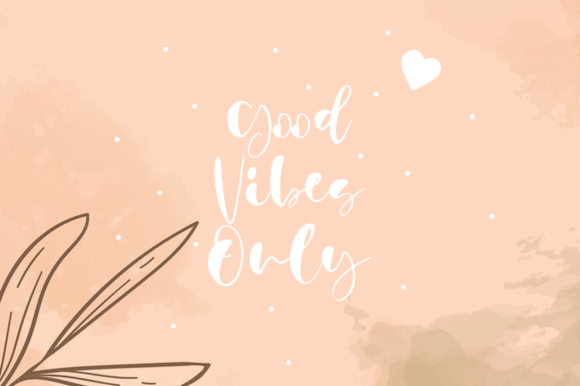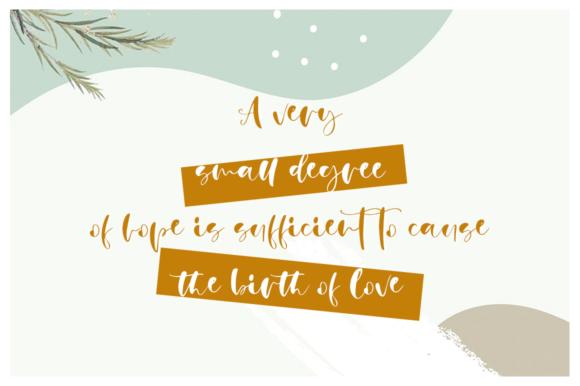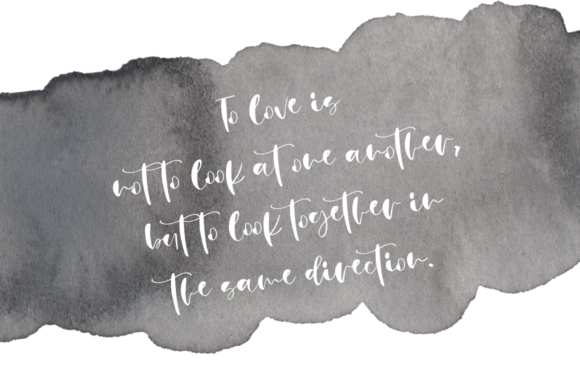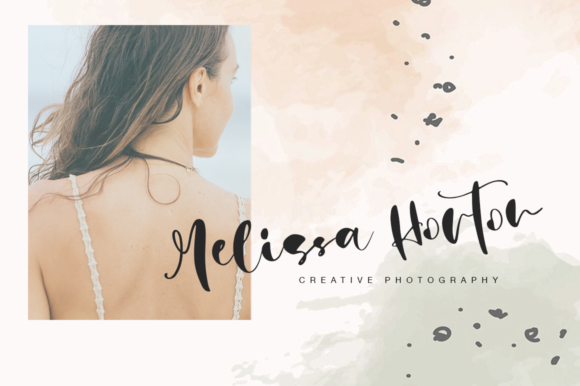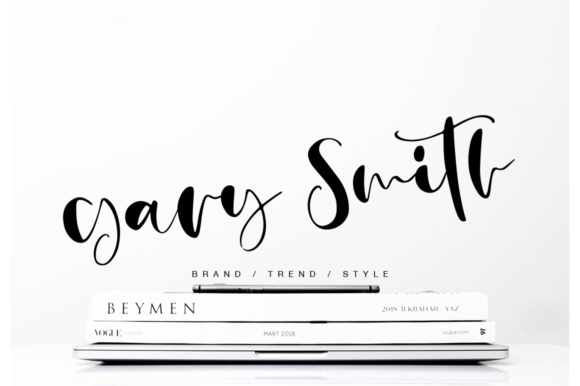
About Michman Font
Michman is an incredibly unique and trendy handwritten font. It can be used for various purposes such as logos, wedding invitations, headings, t-shirts, letterhead, signage, labels, news, posters, badges and so much more.